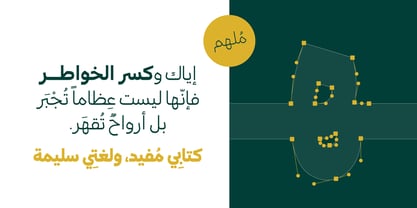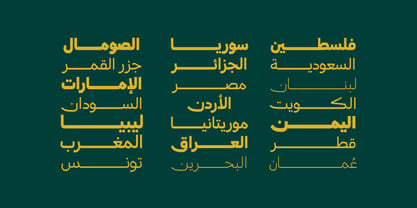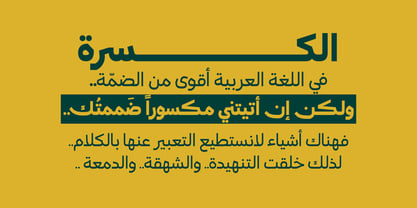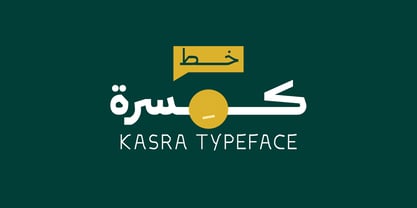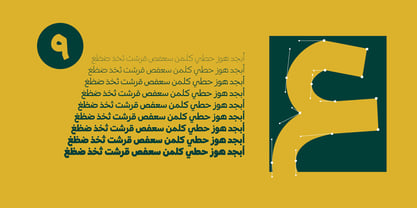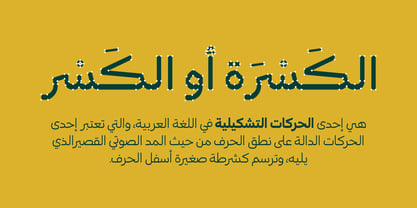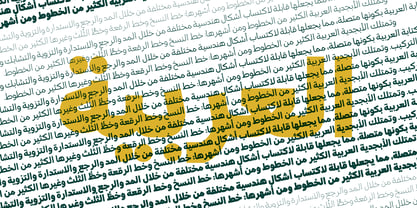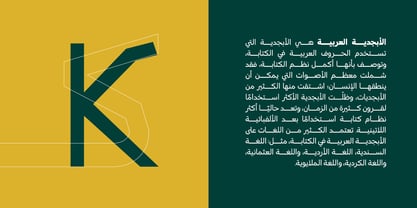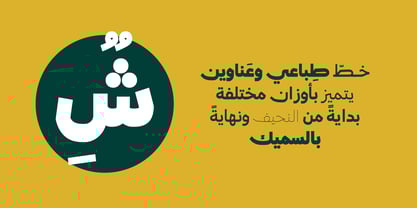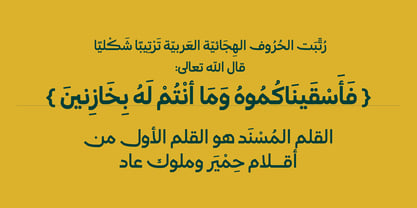
Kasra Typeface
by GHEEN Studio
The Kasra Typeface Font Family was designed by Ali Almeethali and published by GHEEN Studio. Kasra Typeface contains 9 styles and family package options.
Kasra Typeface is a modern, readable, and distinctive font created with the idea of ​​breaking up characters. It supports Arabic, Latin, and their derivatives, and features compound and variable characters.